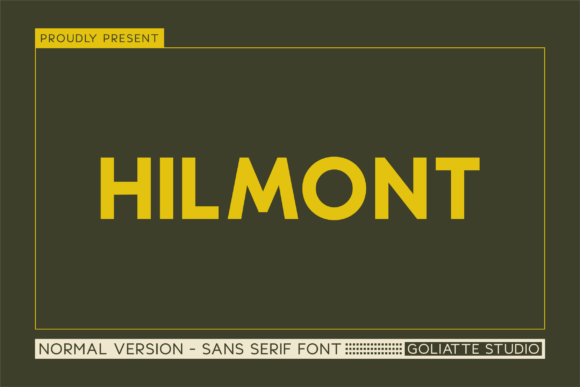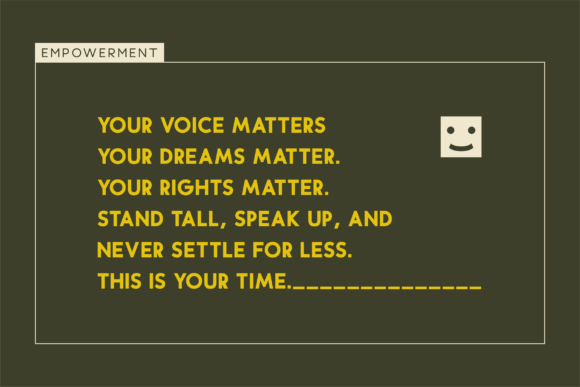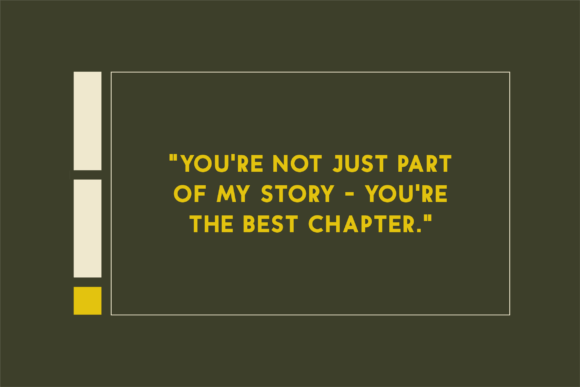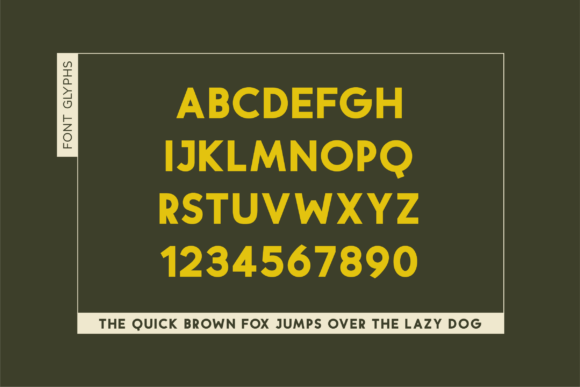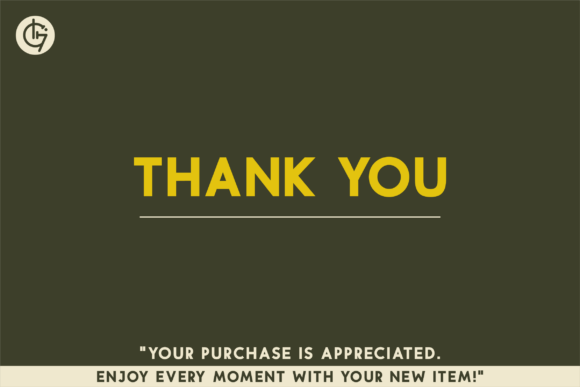
Designing with Clarity: The Power of the Hilmont Font
As designers, we’ve all been there – staring at a blank page, trying to convey a message that will leave a lasting impression on our audience. It’s in these moments of creative uncertainty that we turn to the tools that help us make our mark. One such tool is the Hilmont Font, a modern sans serif typeface that embodies the essence of professional design.
With its clean lines, minimalist aesthetic, and all-caps design, the Hilmont Font is the perfect solution for designers seeking to create a sense of strength and authority in their projects. Whether you’re crafting a logo, website, or print material, Hilmont’s versatility ensures that your message will stand out with clarity and impact. As a valuable addition to any designer’s toolkit, the Hilmont Font is sure to elevate your designs to the next level.
- Unique Characteristics: Hilmont features a unique blend of modern and vintage elements, with a distinctive flair for the dramatic
Hilmont Font Review
As a designer, I was excited to dive into the Hilmont Font and see what it had to offer. Here’s my honest review:
- The Hilmont Font has a unique and modern aesthetic that would be perfect for a variety of projects.
- The font is highly legible, making it easy to read even at small font sizes.
- The font family includes a range of weights and styles, giving designers a lot of flexibility when it comes to choosing the right font for their project.
- The Hilmont Font can feel a bit sterile and lacking in personality, which may not be the best choice for projects that need a more emotional or creative tone.
- The font may not be the best choice for projects that require a lot of emphasis or bold typography.
- The font family is not as extensive as some other font families, which may limit its use in certain projects.
Overall, I would say that the Hilmont Font is a solid choice for designers who are looking for a modern and legible font. However, it may not be the best choice for projects that require a lot of personality or emphasis. With a bit more development and expansion, I think the Hilmont Font could be a real game-changer in the world of typography.
Getting the Most Out of Hilmont Font
To get the most out of Hilmont Font, consider the following tips:
- Use Hilmont Font for headings and titles to add a touch of elegance.
- Combine Hilmont Font with other fonts to create a visually appealing typography.
Alternatives to Hilmont Font
Inter Font is a modern sans-serif font designed by Rasmus Andersson. It is highly legible, making it suitable for body text, headings, and even display typography. Inter Font is a great choice for digital products, apps, and websites where clear typography is essential.
Inter Font is more modern and sleek compared to Hilmont Font. While Hilmont Font has a more traditional feel, Inter Font is designed for a more contemporary look. Inter Font is also more versatile and can be used in a wider range of applications.
Montserrat Font is a geometric sans-serif font designed by Julieta Ulanovsky. It is a clean and elegant font that is perfect for headings, titles, and display typography. Montserrat Font is a great choice for branding, advertising, and editorial design.
Montserrat Font has a more geometric and modern feel compared to Hilmont Font. While Hilmont Font has a more rounded and friendly feel, Montserrat Font is more angular and sophisticated. Montserrat Font is also more versatile and can be used in a wider range of applications.
Lato Font is a modern sans-serif font designed by Łukasz Dziedzic. It is a clean and elegant font that is perfect for body text, headings, and display typography. Lato Font is a great choice for digital products, apps, and websites where clear typography is essential.